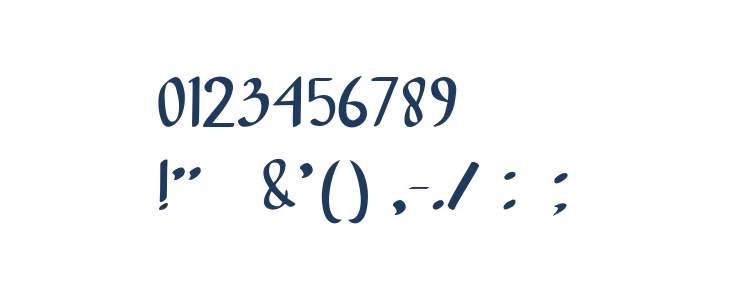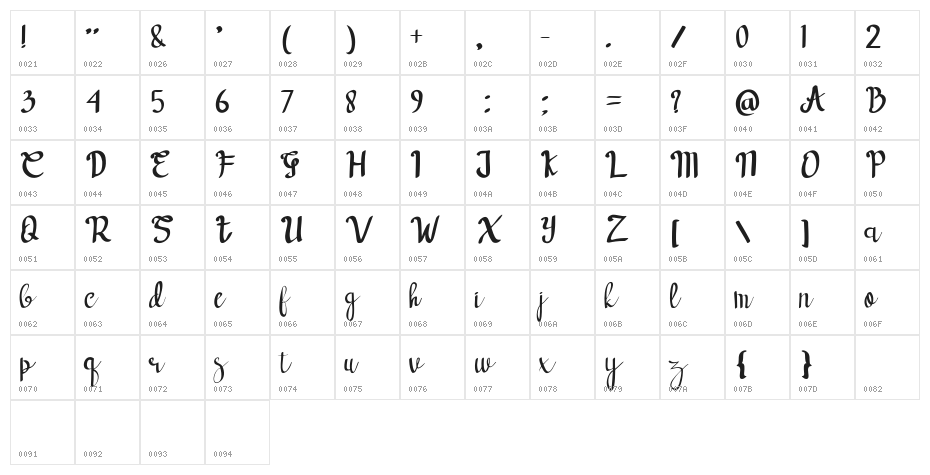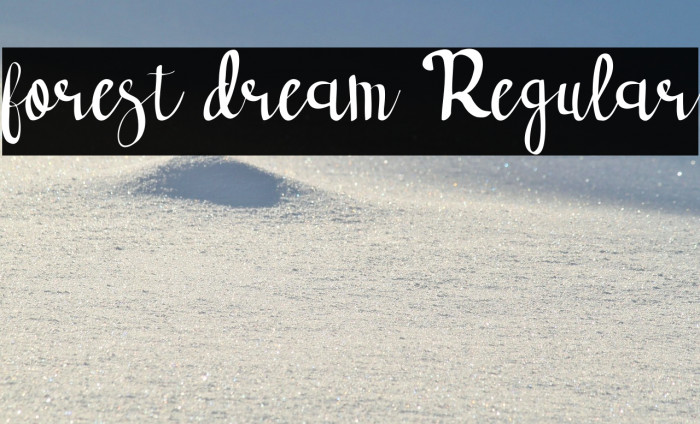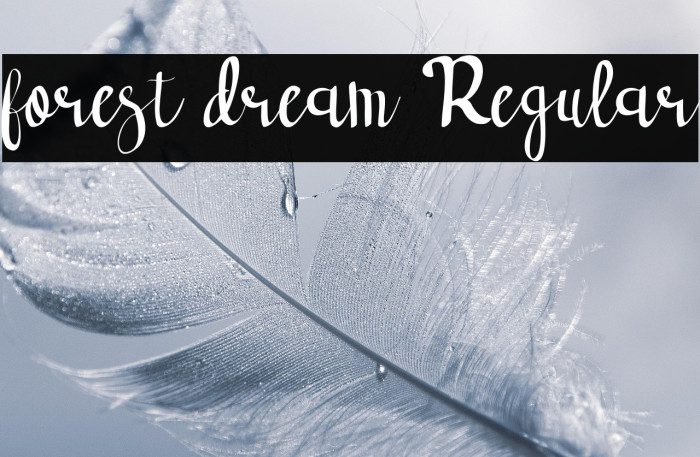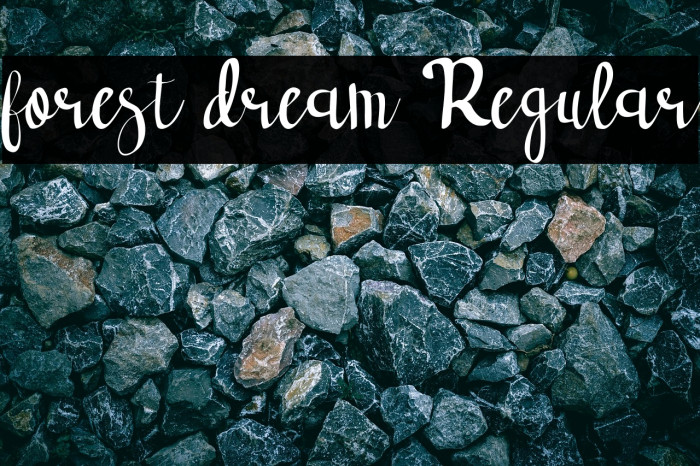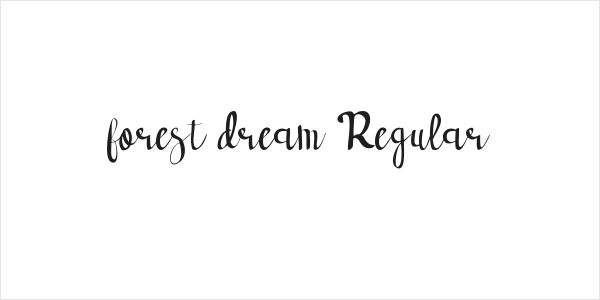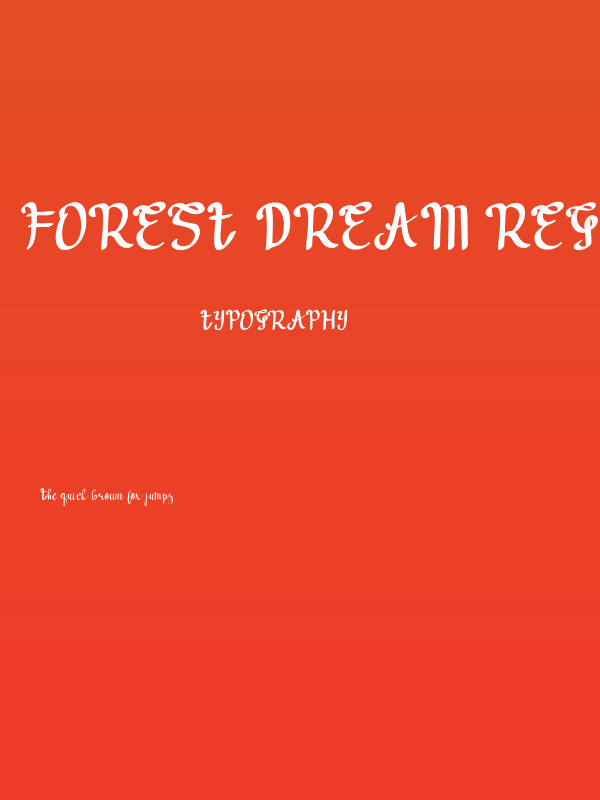
forest dream Regular Font
forest dream Regular Description
This font features a whimsical and flowing design, characterized by its elegant and curvaceous letterforms. The uppercase letters exhibit a playful yet sophisticated style with unique flourishes, while the lowercase letters maintain a consistent fluidity that enhances readability. The numerals are bold and distinct, complementing the overall aesthetic. Special characters are creatively integrated, adding to the font's charm. This typeface is ideal for projects that require a touch of elegance and creativity, making it suitable for invitations, branding, and artistic endeavors.
| Proposed Projects | Ideal for invitations, branding, artistic projects, and creative designs. |